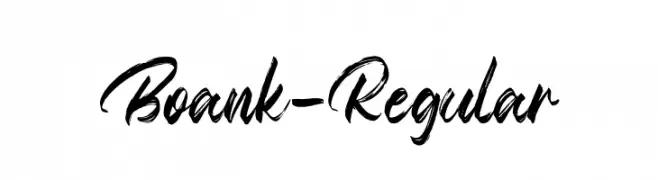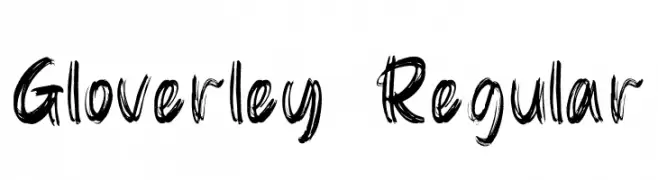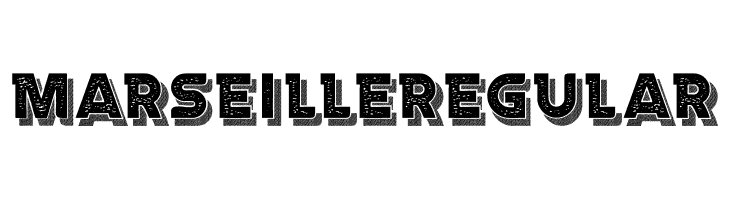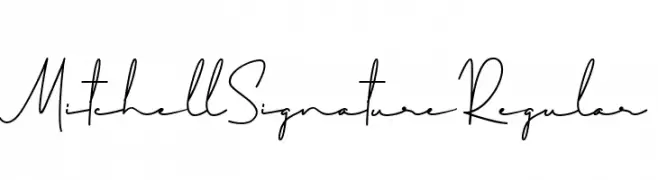
A dynamic, cursive script font with fluid, interconnected letters.
An elegant, flowing script font with graceful curves and artistic flair.
A playful, hand-cut style font with bold, irregular strokes.
A playful and elegant script font with smooth, flowing lines and a handwritten style.
A bold, playful handwritten font with thick strokes and rounded edges.
A playful, handwritten font with tall, narrow letters and rounded edges.
A playful, heart-embellished decorative font with bold, rounded characters.
A bold, handwritten-style font with rounded, playful characters.
A bold, expressive handwritten font with playful strokes.
A playful, handwritten font with smooth, flowing curves and a casual elegance.
A flowing, elegant script font with a handwritten style.
A bold, decorative font with intricate details and a vintage-modern appeal.
A playful, flowing script font with a casual, handwritten style.
A bold, handwritten font with a playful and energetic style.
A lively handwritten font with smooth, cursive strokes and a playful style.
A dynamic handwritten font with fluid, continuous strokes and a casual elegance.
A bold, playful, hand-drawn font with a whimsical and artistic style.
A spooky, hand-drawn font with jagged, elongated characters.
A fluid, cursive font with elegant, signature-like strokes.
A fluid and elegant handwritten script with smooth, continuous strokes.
A playful handwritten font with a casual and friendly appearance.
A bold, playful handwritten font with a dynamic and friendly style.
A bold, playful handwritten font with a casual and friendly style.
A dynamic and flowing script font with elegant cursive letterforms.
A bold, distressed font with a vintage, textured appearance.
An elegant script font with flowing, cursive style and intricate loops.
A whimsical and decorative font with curly, flowing letterforms.
A whimsical collection of autumn-themed dingbats featuring turkeys, pumpkins, and other harvest symbols.
A fluid and elegant script font with a natural handwritten style.
A graceful, cursive font with a handwritten style and consistent stroke width.